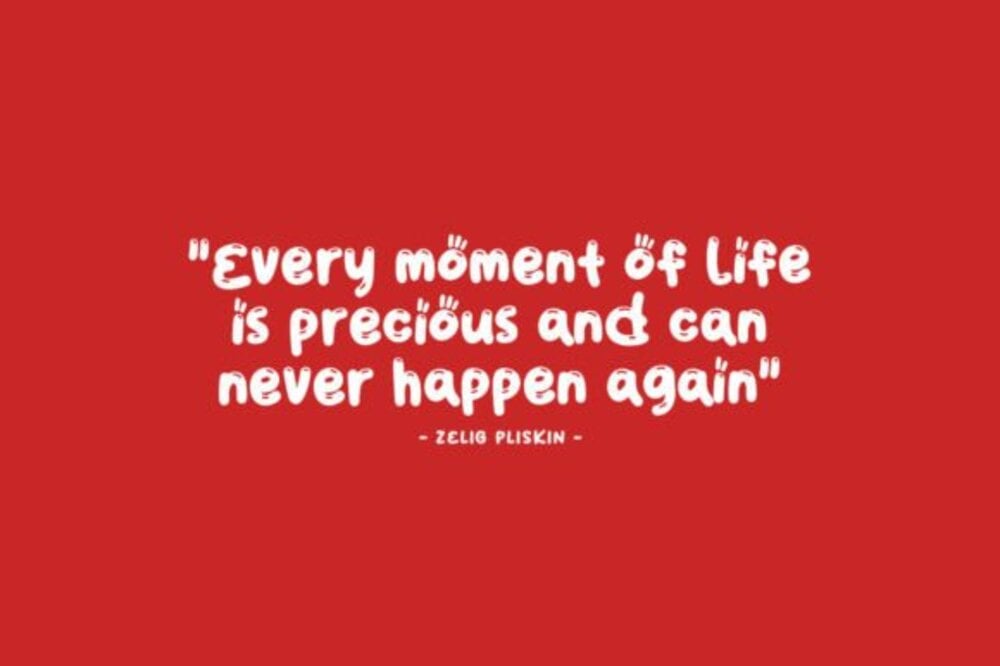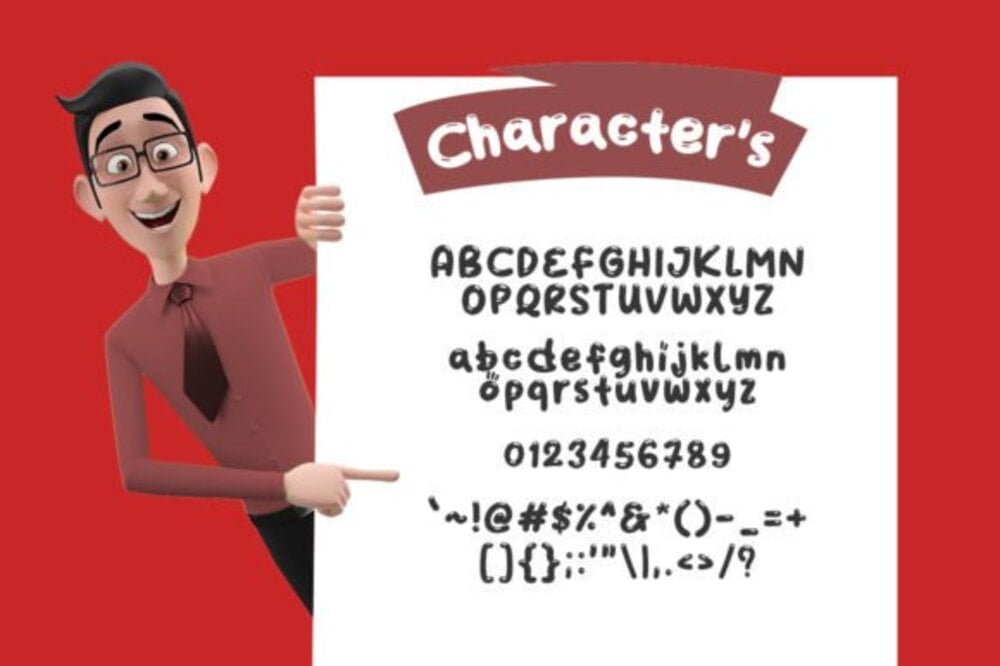
ColaKind Font
ColaKind Font is a playful and inviting typeface that radiates warmth and nostalgia. With its rounded edges, bold strokes, and retro-inspired design, it’s perfect for branding, packaging, or creative projects that aim to evoke joy and friendliness. The font’s versatility shines in both headlines and logos, offering a welcoming charm. ColaKind’s unique character makes it ideal for creating a memorable, approachable, and visually appealing aesthetic.